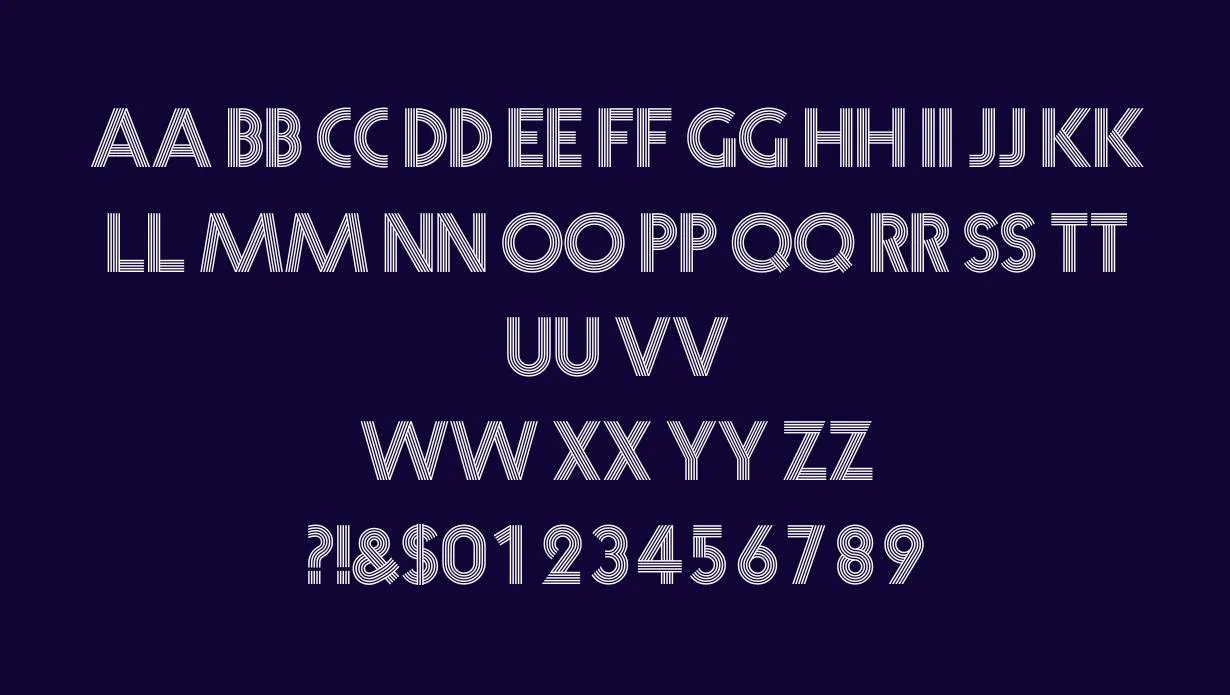
Prisma Font is a typeface with a unique and artistic design, often used in creative advertising, branding, and headline text where designers want to create a memorable visual impact.
The font’s intricate and creative letterforms make it stand out and draw attention. This font style also makes a good combination pair with cintaku font.
| Name | Prisma Font |
| Designer | Rudolf Koch |